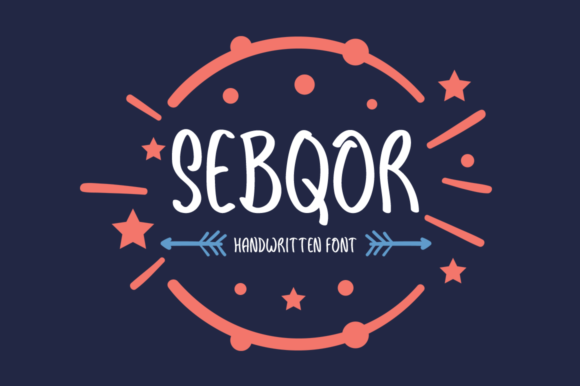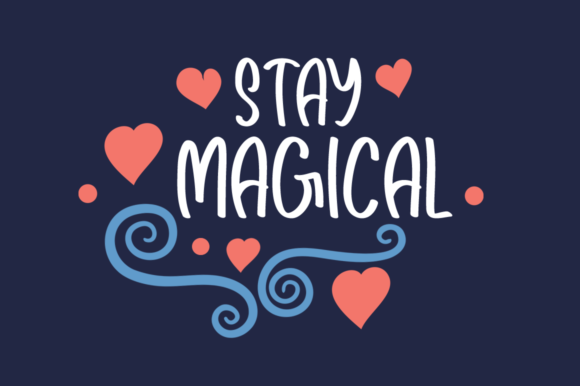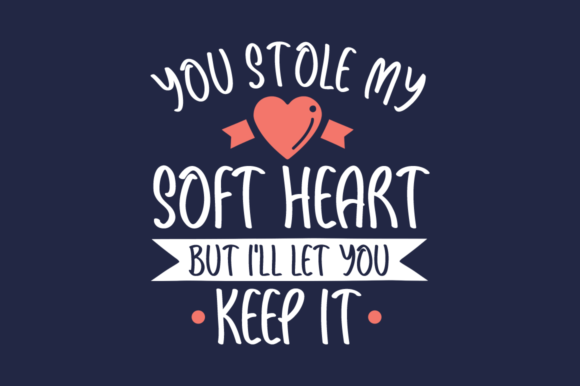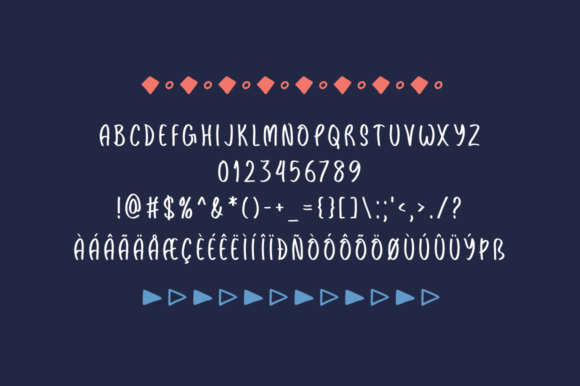
HomeScript FontsSebqor Font Script Fonts Sebqor Font FacebookXPinterestWhatsApp Sebqor Font Poster 2 Sebqor Font Poster 3 Sebqor Font Poster 4 About Sebqor Font Sebqor is a fun and magical script that will turn any crafting idea into a true standout! DOWNLOAD ON CREATIVE FABRICAThis font is sold and delivered by Creative Fabrica. Font Canyon may earn a commission if you buy through this link. People also explored Sweet Final Font Hytag Font Kuy Lemonade Font Minnesota Recomended Font Asegunt Font Chic Budapest Font Creamly Font Maghony Font 397 0 TagsSebqor Font Previous articleMaghrib FontNext articleAdipilia Font LEAVE A REPLY Cancel reply Comment: Please enter your comment! Name:* Please enter your name here Email:* You have entered an incorrect email address! Please enter your email address here Website: Save my name, email, and website in this browser for the next time I comment. Personal Use Free Unsteady Overseer Personal Use Free Read more about this font Cinderella Personal Use Free Read more about this font Bonifaciy Personal Use Free Read more about this font Fuixg Personal Use Free Read more about this font BLOG Exploring Font Trends Shaping Communication in the Digital Era Fonts, like all design elements, are subject to trends. They play a crucial role in communicating a brand's personality,... Top 10 Handwritten Fonts That Elevate Your Designs Best Fonts for T-Shirt Design – Top 2025 Picks Elegant Wedding Invitation Fonts – Handwritten & Script Fonts